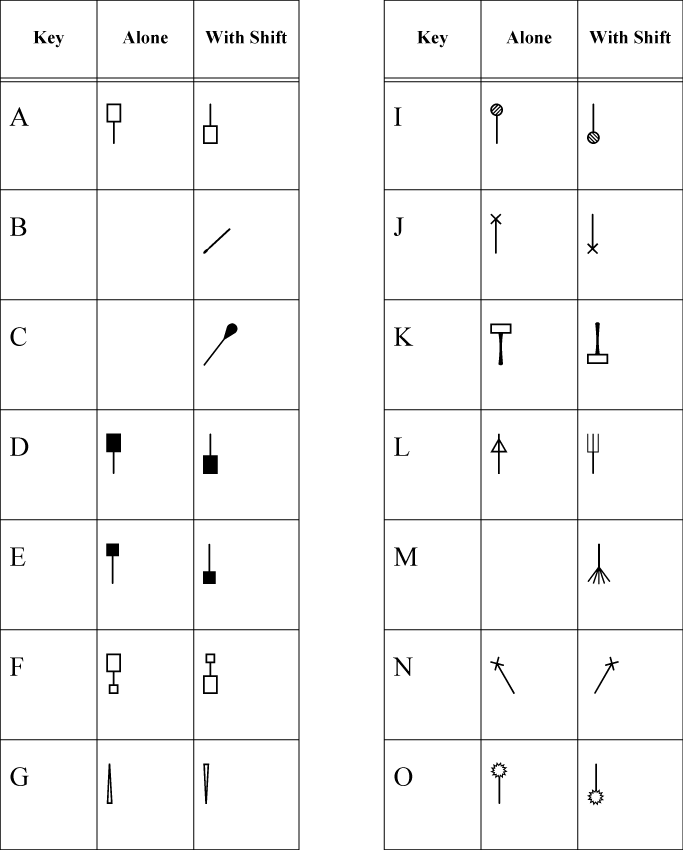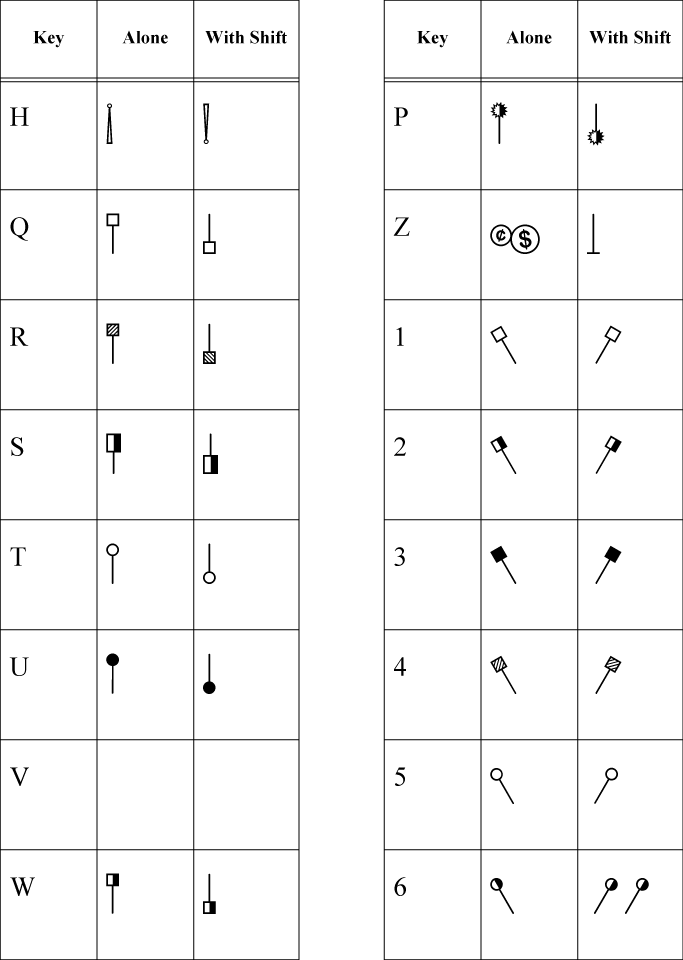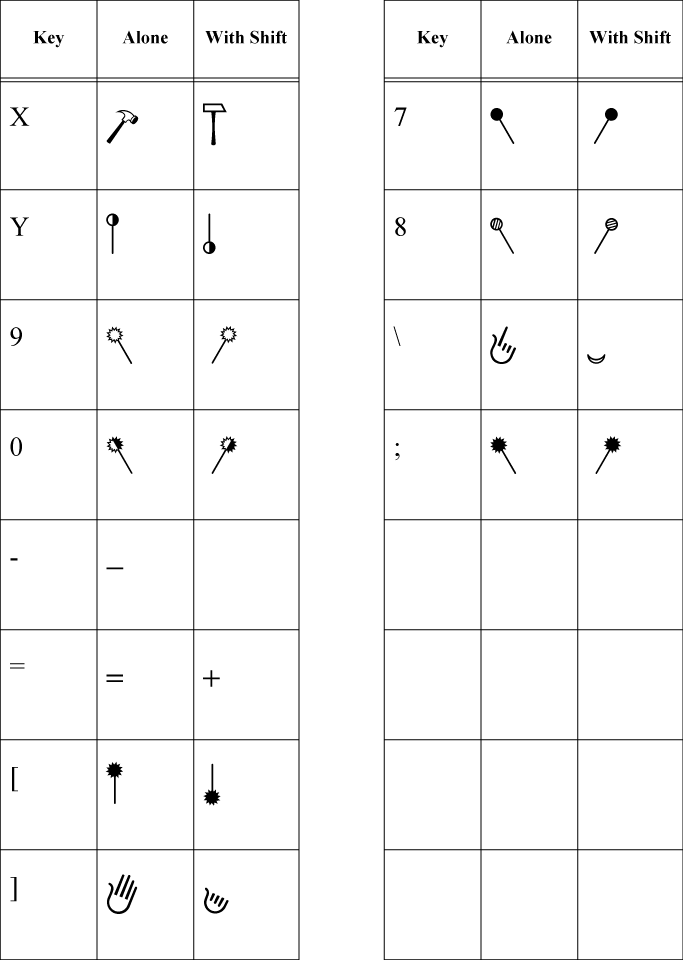
The Finale Mallets font includes icons to represent any variety of mallet usages, including the ability to create cross-mallet symbol. For example, you could use two 'zero-width' characters (e.g.
) to indicate the performer should use a yarn mallet in the left hand, and a hard mallet in the right hand.
Finale Mallets Character Set